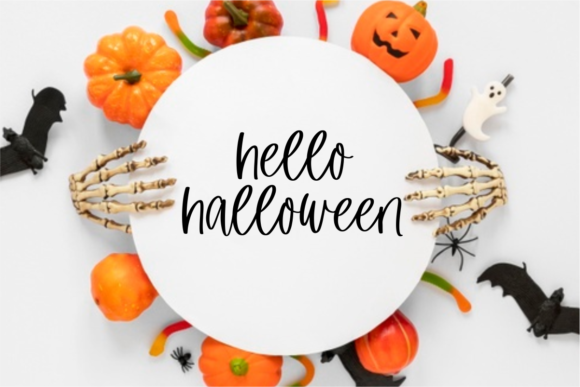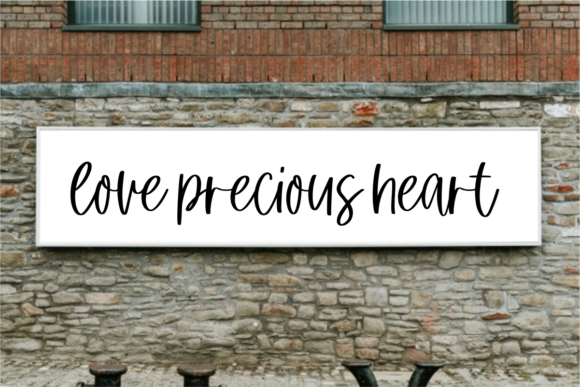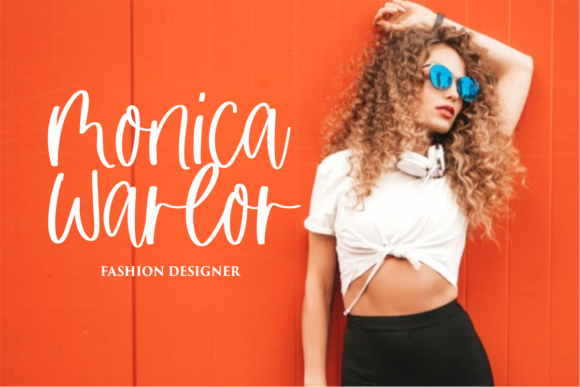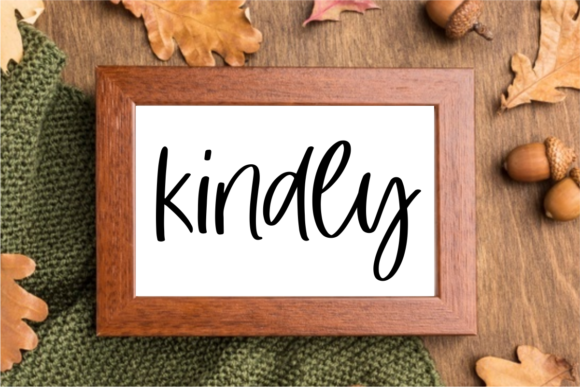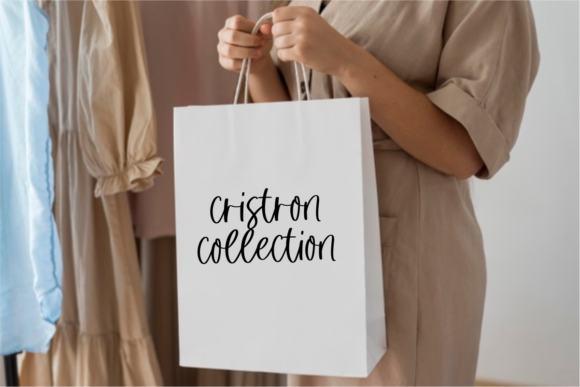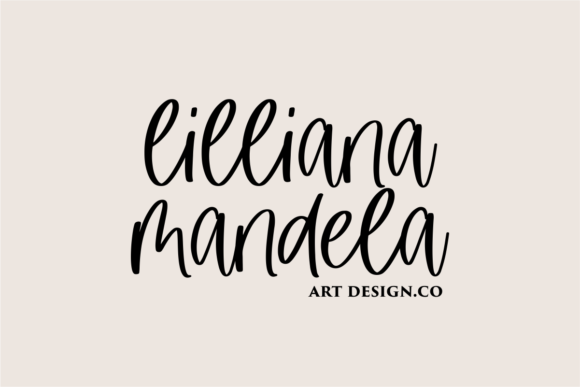
Introduction to Little Pumpkin Font
Little Pumpkin is a relaxed, flowing and casual handwritten font.
Little Pumpkin Font offers exceptional quality and versatility, making it a valuable addition to your design toolkit. Whether you’re creating for personal projects or commercial use, Little Pumpkin Font delivers professional results.